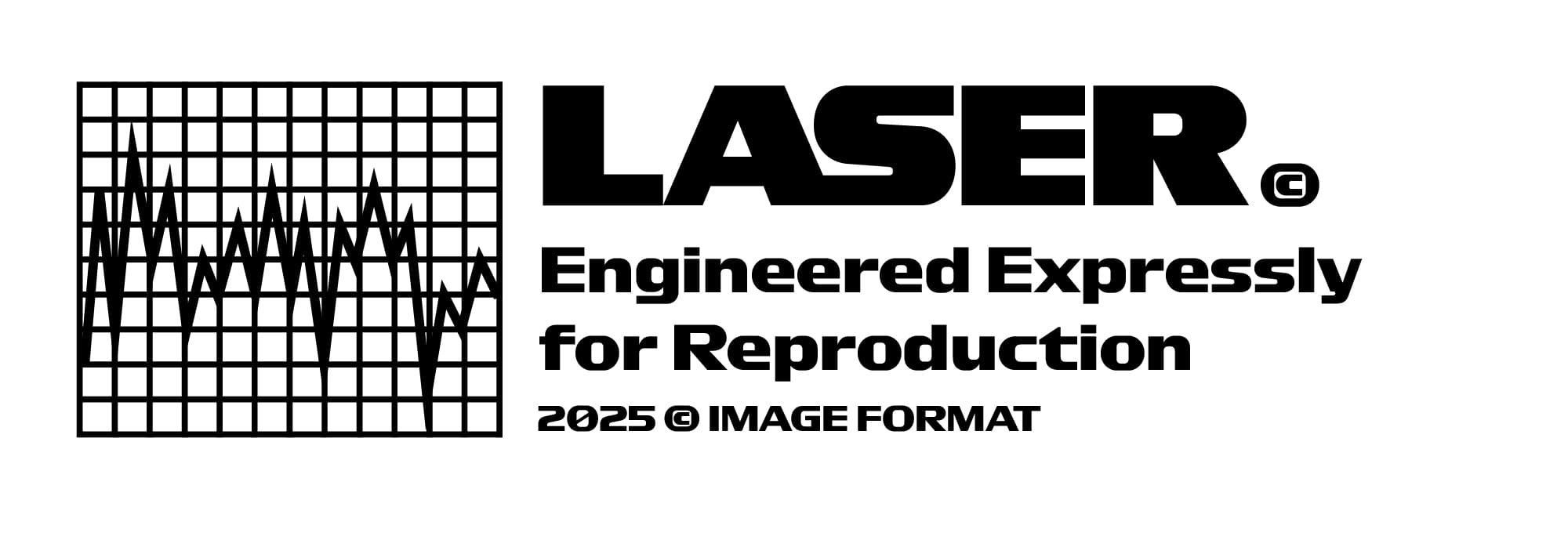
Record Laser
How to take a contemporary look at the futuristic aesthetics of the 1980s? Record represents a balance between an update and a testimony. Not only does it take us back to a time when music was transmitted over cables and collected on shelves, it also brings this aesthetic up to date with contemporary standards of typographic design. As the process moved forward, we decided to create two distinct families: Record Laser, with its sharp, unapologetically retro-futuristic aesthetic, and Record Disc, softer, more refined and suited to a variety of applications. Certain historic fonts, ubiquitous in our cities laid the foundations of Record, specifically Antique Olive Nord by Roger Excoffon and Serpentine, by Dick Jensen.
Record represents a balance between an update and a testimony. Not only does it take us back to a time when music was transmitted over cables and collected on shelves, it also brings this aesthetic up to date with contemporary standards of typographic design.